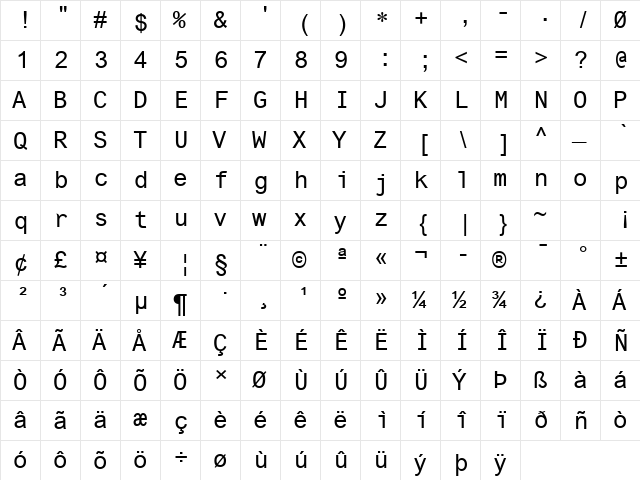
TI Uni Regular
| Foundry | Agfa Monotype Corporation |
Design Context for TI Uni Typeface
TI Uni takes a measured approach to typography — its balanced proportions and neutral character make it a reliable workhorse for both digital and print work.
Pro Tip: Use TI Uni in both headline and body roles to test its range before committing to a single application.